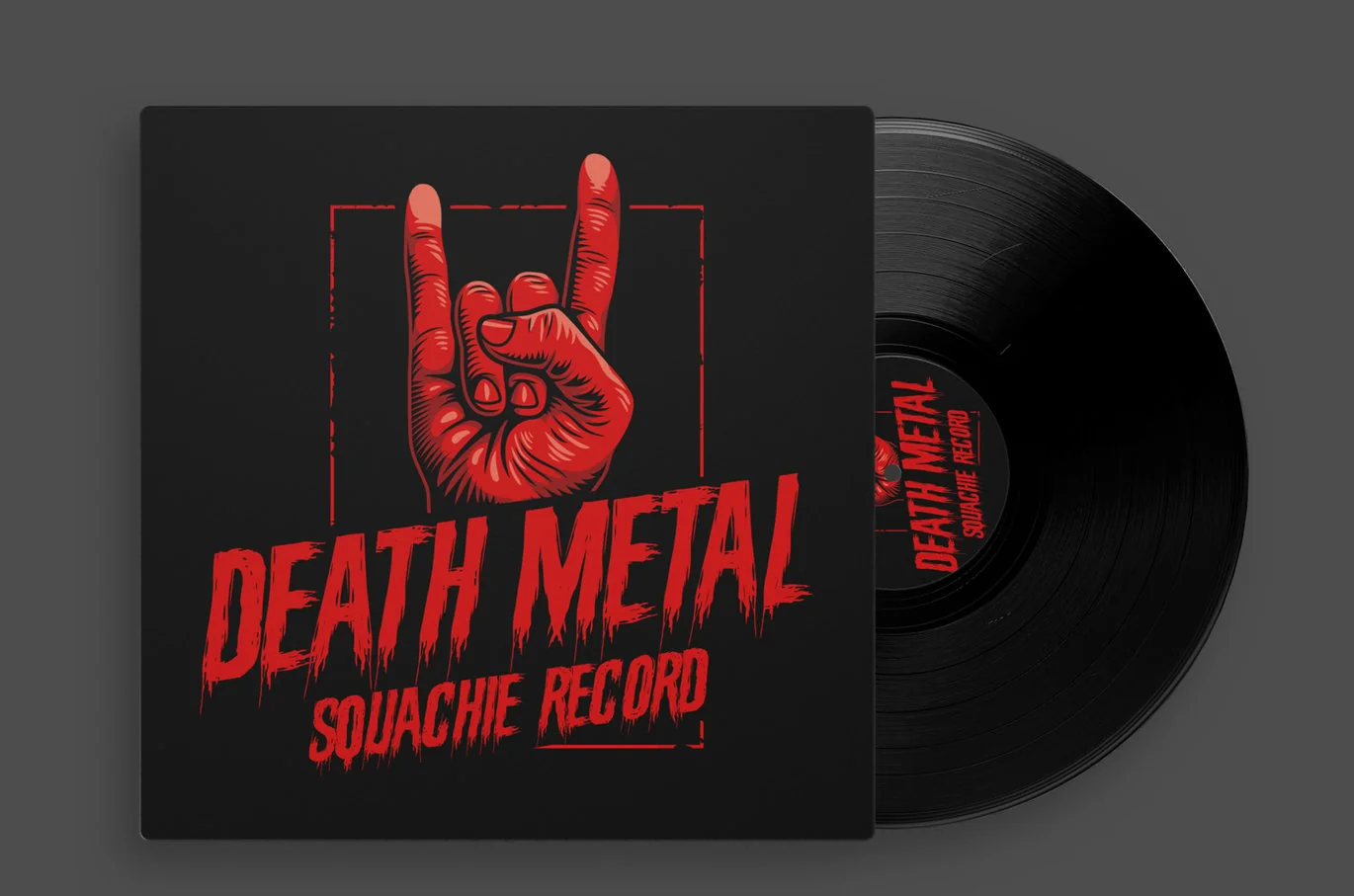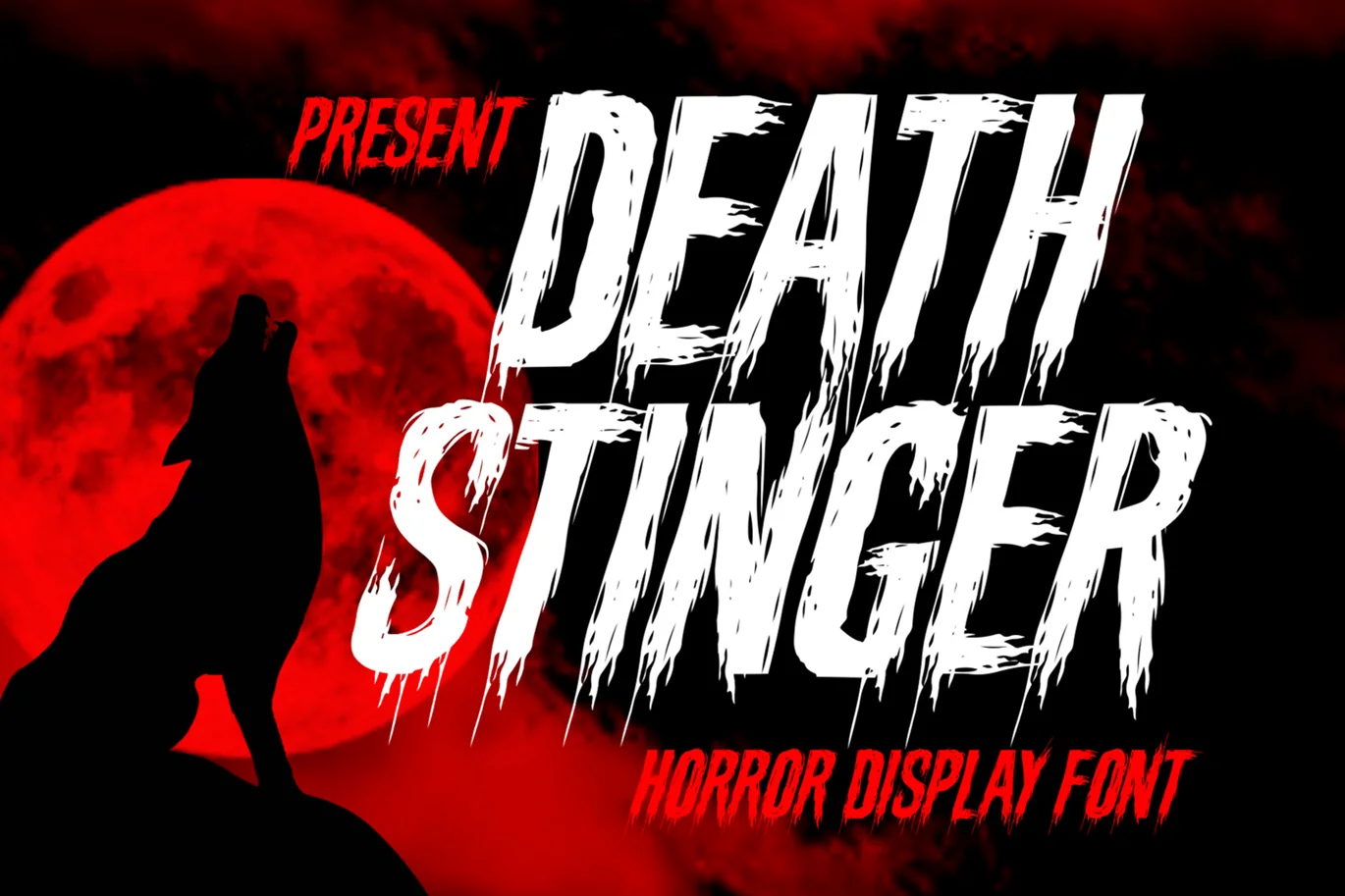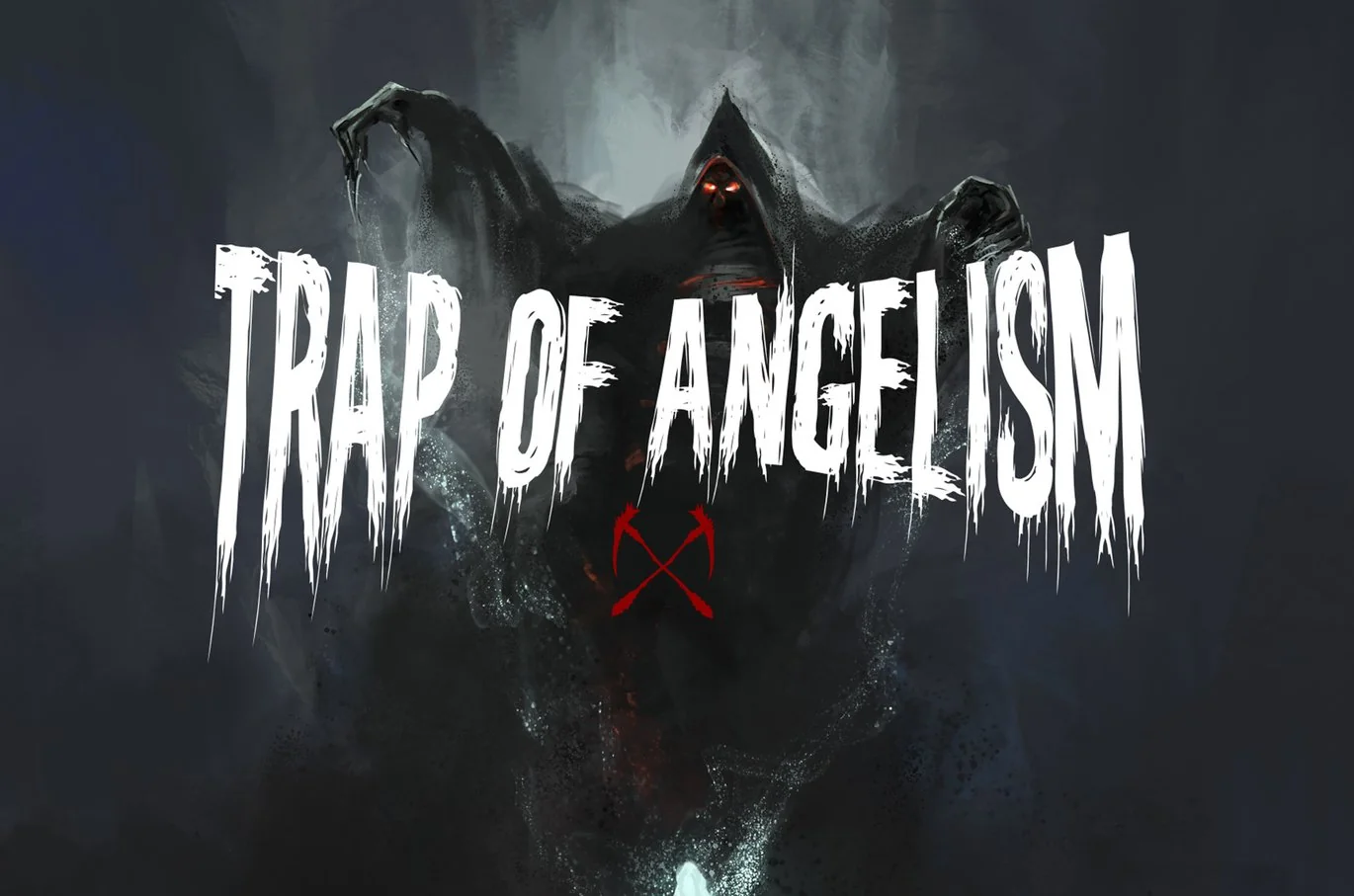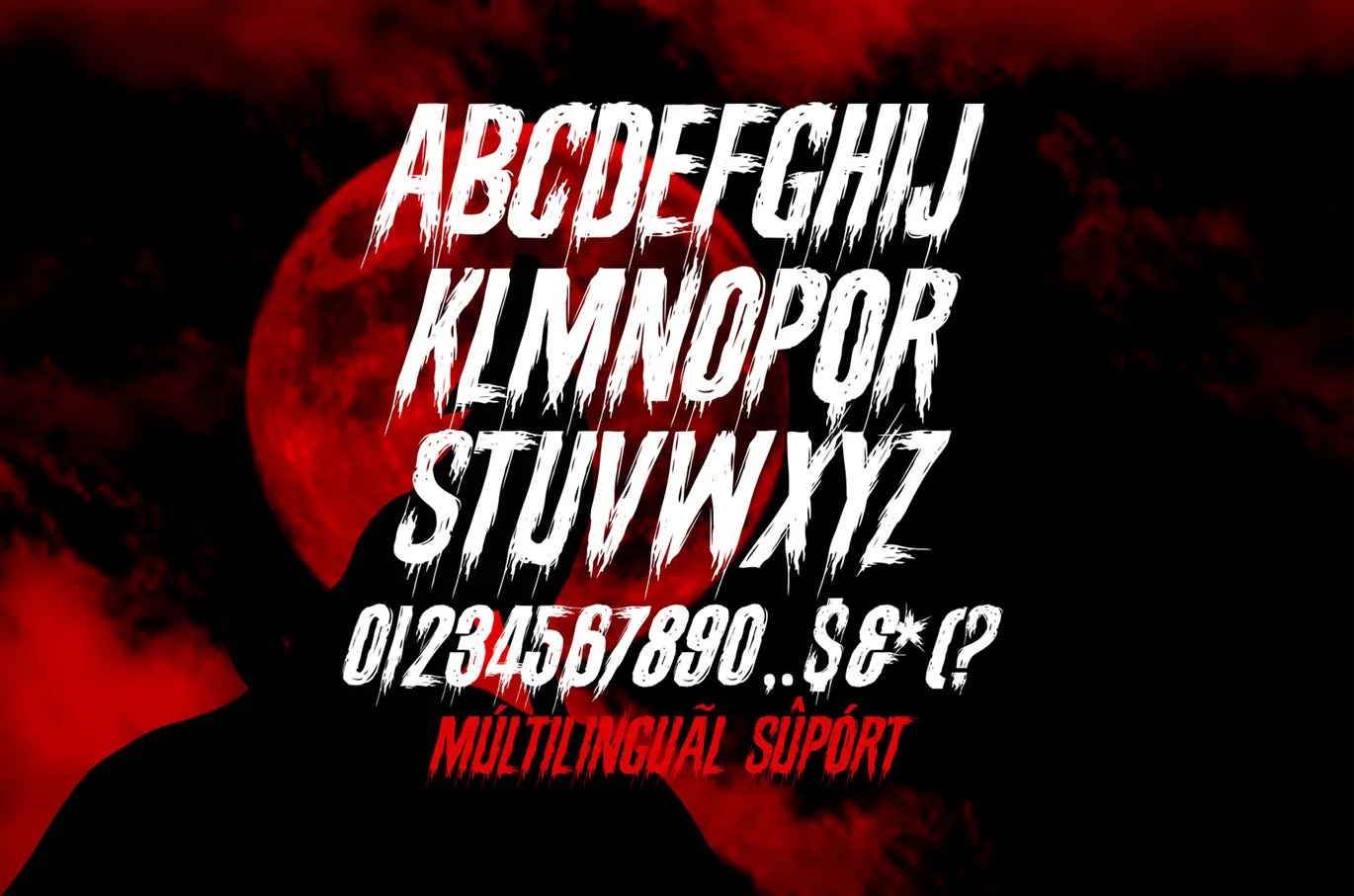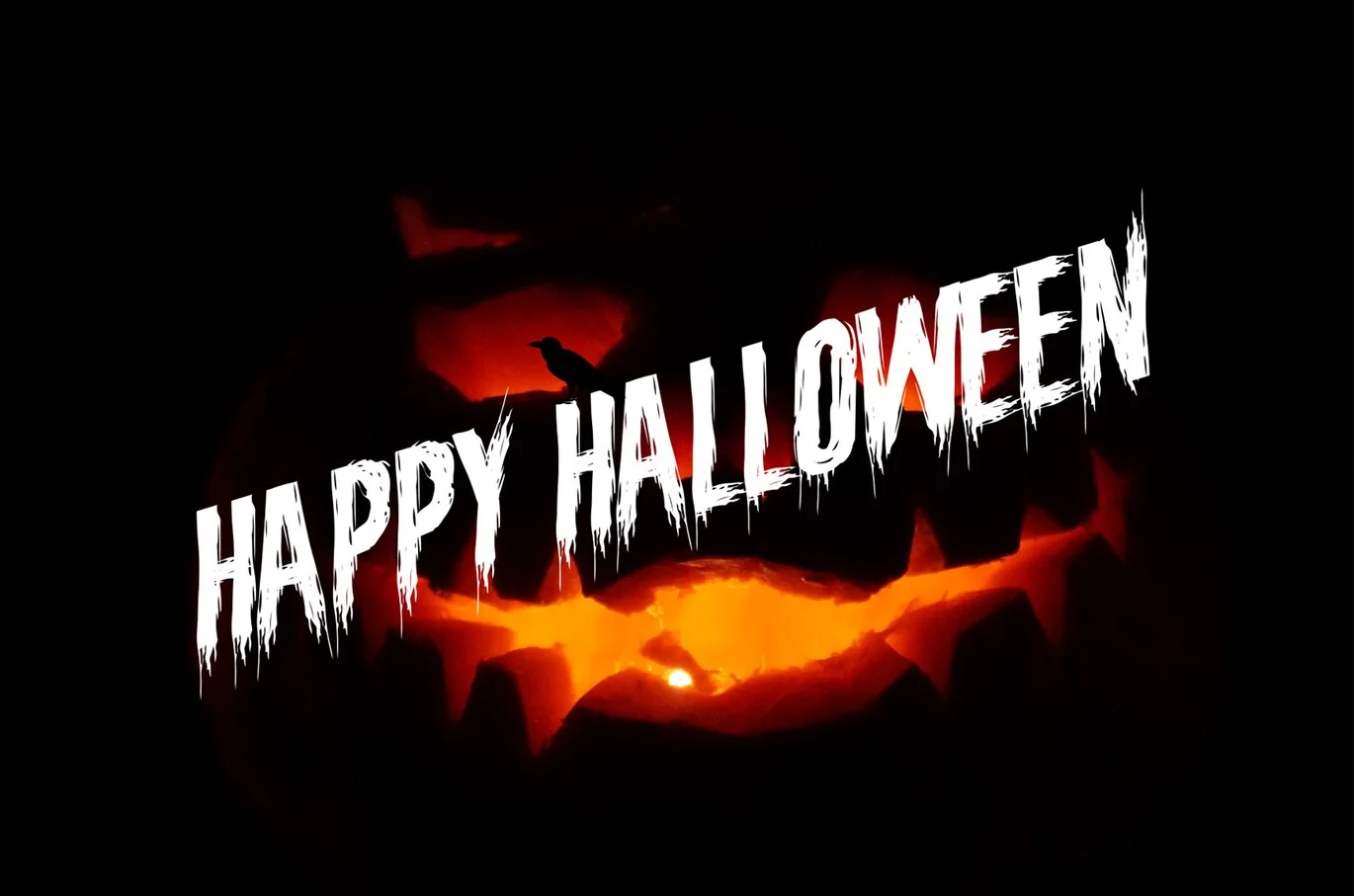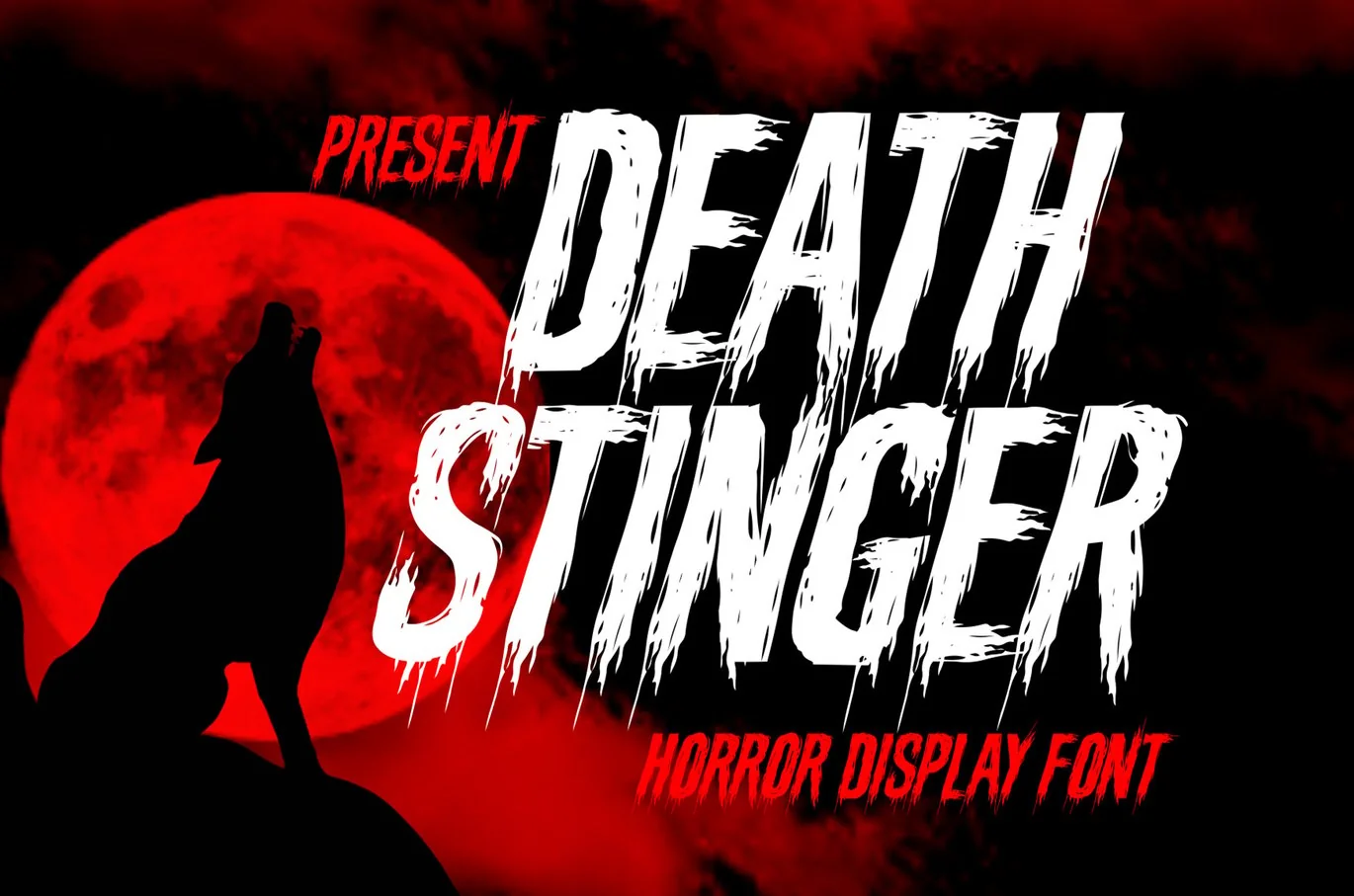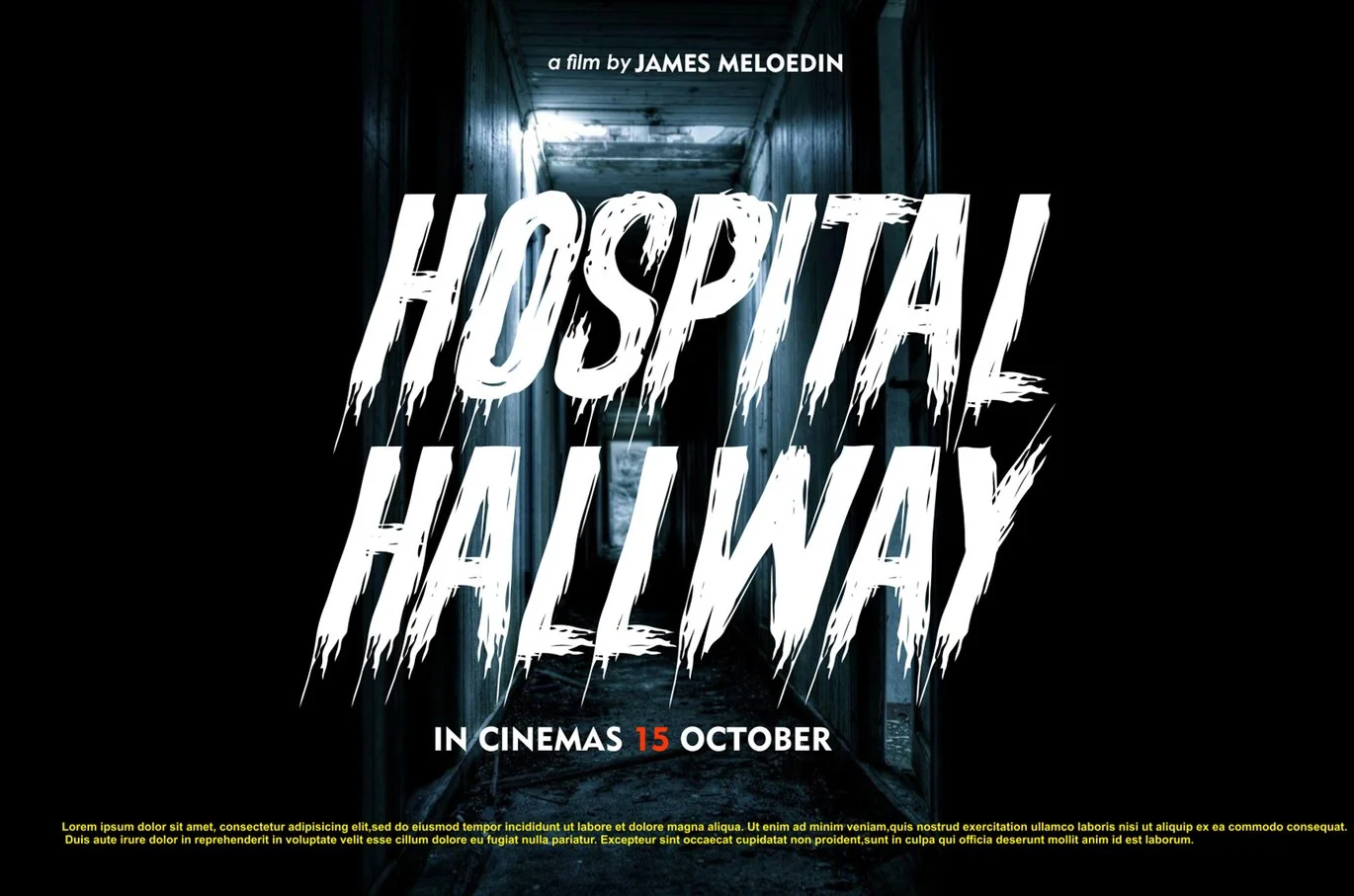
Death Stinger – Halloween Horror Font
Death Stinger – Horror Font is a horror fantasy hand-lettered font. Work great for any design needs: logo, branding, modern advertising design, logos, poster quote, movie, game, novel, book/cover Title, editorial design, website/blog, card, custom mug, and any fantasy hand-lettered needs.